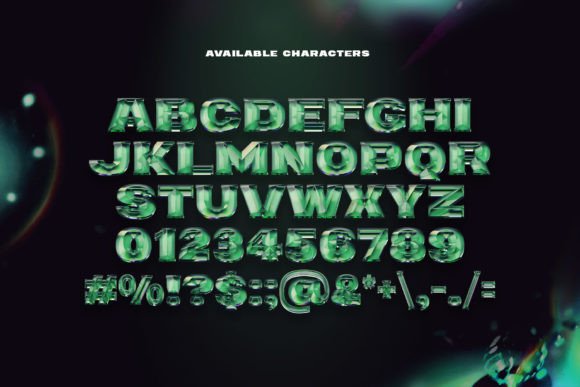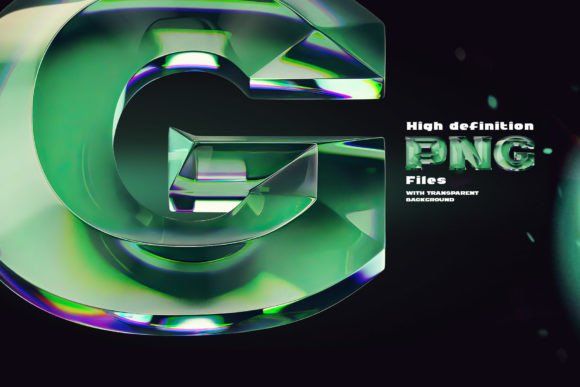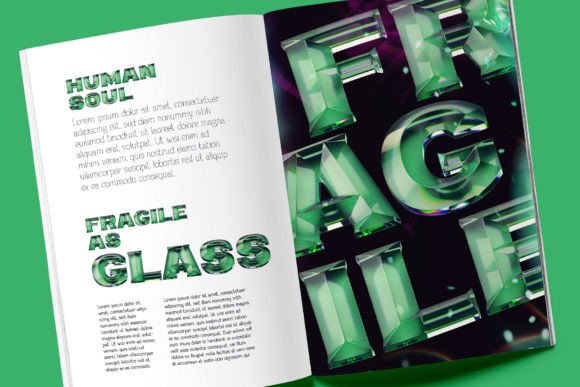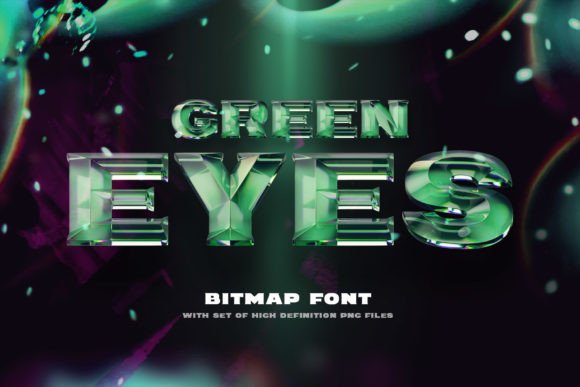
Introducing Green Eyes Font: Elevate Your Designs with Sparkling Green Glass
Are you tired of using the same old fonts in your designs? Look no further! We’re excited to introduce Green Eyes Font, a stunning 3D-rendered typeface made of sparkling green glass with a colorful dispersion effect. This glossy font set is sure to elevate any creation and add a touch of elegance to your designs.
What Makes Green Eyes Font So Special?
Green Eyes Font is a unique and eye-catching typeface that’s perfect for designers and crafters looking to add some sparkle to their work. Here are just a few reasons why this font stands out:
- 3D-rendered design: Green Eyes Font is a 3D-rendered typeface that gives it a realistic and glossy appearance. The sparkling green glass effect adds a touch of sophistication and elegance to any design.
- Colorful dispersion effect: The colorful dispersion effect in Green Eyes Font adds an extra layer of depth and visual interest to the typeface. This effect gives the font a sense of movement and energy, making it perfect for designs that need to grab attention.
- Versatile: Green Eyes Font is versatile and can be used for a wide range of design projects, from logos and branding to packaging and advertising.
How to Use Green Eyes Font in Your Designs
Green Eyes Font is easy to use and can be incorporated into your designs in a variety of ways. Here are a few ideas to get you started:
- Logos and branding: Use Green Eyes Font to create a unique and memorable logo for your business or brand. The sparkling green glass effect adds a touch of luxury and sophistication, making it perfect for high-end brands.
- Packaging design: Add some sparkle to your packaging designs with Green Eyes Font. This font is perfect for product labels, packaging inserts, and other marketing materials.
- Advertising: Use Green Eyes Font to create eye-catching ads that grab attention. The colorful dispersion effect makes this font perfect for digital ads, billboards, and other large-format advertising.
Tips for Getting the Most Out of Green Eyes Font
Here are a few tips for getting the most out of Green Eyes Font:
- Experiment with different colors: While the sparkling green glass effect is stunning on its own, you can also experiment with different colors to create unique and interesting variations.
- Play with texture and patterns: Green Eyes Font looks great on its own, but you can also add texture and patterns to create a more interesting design.
- Use it sparingly: While Green Eyes Font is eye-catching, it’s best to use it sparingly to avoid overwhelming the design. Use it as an accent font to add interest and emphasis.
| Author | Gleb Guralnyk |
Green Eyes Font is a stunning and versatile typeface that’s perfect for designers and crafters looking to add some sparkle to their work. With its 3D-rendered design, colorful dispersion effect, and glossy appearance, this font is sure to elevate any creation. Whether you’re working on a logo, packaging design, or advertising project, Green Eyes Font is a great addition to your typeface collection.